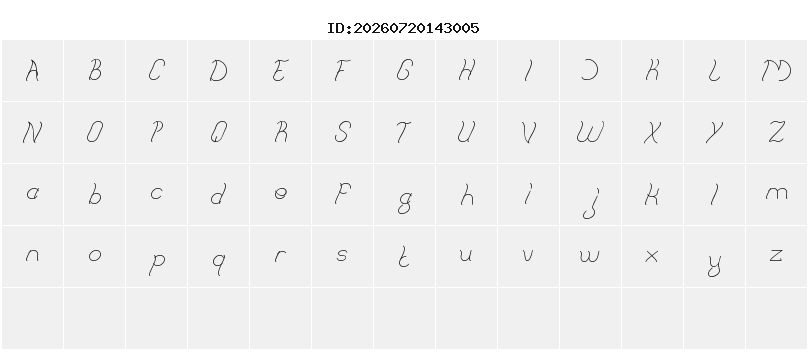
• Font Name: French fries
About French fries.ttf
French fries.ttf is a modern, elegant sans-serif font designed for ultimate readability and visual harmony. Perfect for branding, headlines, web design, and print materials.